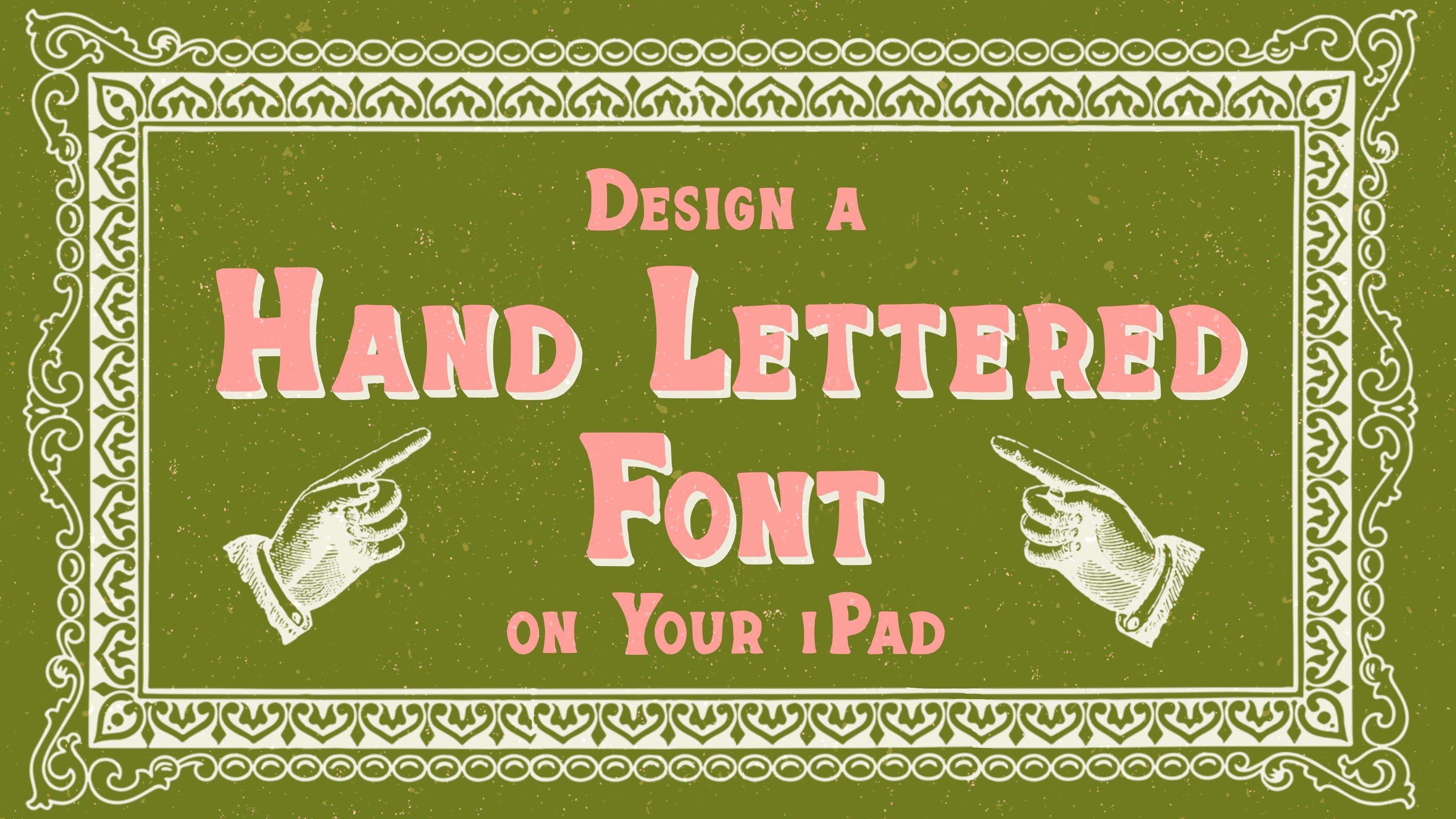
Design a Hand Lettered Font on Your iPad
Planning Your Font Style
Drawing the Letters
Vectorizing and Testing
Kerning
Cursive Fonts
In this class you’ll learn all the steps to design a font on your iPad in Procreate.  I create fonts on my iPad and sell them on Creative Market to make a little extra passive income, and I wanted to show you my whole process from start to finish so you can start creating fonts for personal or commercial use.
First we’ll plan our font using vintage lettering inspiration and then test out some letter styles before diving in and designing the whole letter set.  I’ll show you some of the fonts I’ve made as an example, so you can use my fonts as inspiration to create your own or you could come up with your whole own font style.
Next we’ll draw each letter by hand in Procreate so you can create a font with a handmade feel and even include texture, outlines, and other decorative elements.  Then we’ll piece the font together and tweak the spacing and sizing of each letter combination.
Last I’ll show you how I list the font for sale in my Creative Market shop so you can decide if selling fonts is right for you.  I’ll show you my process for creating images to display your font so you can market your font to the target audience that matches your style.
The amazing thing about this process is you can create beautiful fonts with a handmade feel all on your iPad without needing any other equipment.  Hand lettering is so popular right now, but a lot of people just don’t have time to learn how to hand letter, which is why creating fonts with a handmade feel is such a marketable way to use your love of lettering to share your work with the world and make a little extra income!
All you need to take this class is your iPad and a stylus.  We’ll be using the apps Procreate and iFont Maker to build the fonts, so those are the only paid apps you’ll need for this process.  I’ll be using the Apple Pencil, but you could use any stylus, or even your finger.  Let’s get started!
1. Design a Hand Lettered Font on Your iPad: Hi everyone. I'm Liz Colin Brown. I'm an artist, designer, and, teacher. Today I want to show you how to design a font on your iPad and Procreate. I create fonts on my iPad and sell them on Creative Market to make a little extra passive income. I want to show you my whole process from start to finish so you can start creating fonts for personal or commercial use. First we plan out our font using vintage lettering inspiration, and then test out some letter styles before diving in and designing the whole letter set. I'll show you some of the fonts I have made as an example so you can use my fonts as inspiration to create your own or come up with your whole own font-style. Next we'll draw each letter by hand and procreate. You can create a font with a handmade feel and even include some texture, outlines, and, other decorative elements. Next, we'll piece the font together and tweak the spacing and sizing of each letter combination. I will show you how I list the font for sale in my Creative Market shop so you can decide if selling fonts is right for you. The amazing thing about this process is that you can create beautiful fonts with a handmade feel using only your iPad without needing any other equipment. Hand lettering is so popular right now, but a lot of people just don't have time to learn how to hand letter, which is why creating fonts with a handmade feel is such a marketable way to use your love of lettering to share your work with the world and make a little extra income. We'll be using two different apps to design and piece the font together. The first is Procreate and the second is IFont. Those are the only paid apps that you'll need for this process. Other than that, you'll just need your iPad and a stylus. Let's get started. 2. Downloads and Resources: The first thing we'll do is get some inspiration for our font style and plan out all of the letters. I want to share some downloads and resources with you that will make this process easier. You can find a link to get to the Downloads and resources section and the Project section on Skillshare. Make sure you're viewing Skillshare in a web browser, not the app because the Project section doesn't show up on the app. Once you click on that link you'll see that you need a password to get into the page, and I'll share the password on screen right now. Once you get into the page, you'll see a list of resources that we'll be using throughout the class. The first is the Letter Styles Inspiration Boards, so I'm going to start there. If you have the Pinterest app, it'll open the app. You can use any of these as your inspiration. I would probably stick to the add, signs, and partial alphabets or whole alphabets. But if I just click on one of these as an example, you can scroll through and start getting an idea of what you could do with one of these fonts. We're probably going to simplify whatever we find here, because fonts tend to be a little bit more simple than what you see in regular hand-lettering. Let's take this one for example. I really like these curved serifs on the bottom, it's just like two little loops. That would be a good idea for a font. You could create these bars and then do these little loops on the end of each letter. You could create a new Pinterest board and save some of these that you really like, or you could just take screenshots as you scan through. I probably would stick to a serif or a sans-serif font at this point. Cursive fonts pose a little bit more of a challenge, so that's a good thing to do down the road. I'll show you one of the cursive fonts that I created, but for now it's probably good to stick to something a little more simple just to get to know this process. Here's a really nice one. Really thin bars, really tiny little serifs. Some of the letters are super wide and some are super thin, so you get this nice interesting contrast between the two. You could even do one set that's thick and one set that's thin and package them together, and say, "This is a set." You can mix and match. You could also do something like this that's more of a simple monoline. I do recommend looking for something simple. Of course, I want you to feel free to copy me and do everything as I do it in this class. If you're not ready to choose a style, just go ahead and copy the style I'm using. So you don't have to worry about starting from scratch. Here's another one. As I'm scrolling through this, I'm thinking of all these parts I want to create. Really chunky, really flat edges, so you could use a brush that has a really flat edge and just scrape through all these letters. That would be a really cool chunky font. Something like bubbly, that one's fun. It doesn't have to be reinvention of the wheel here. You can take an idea and play around with it, and do something similar. This page has endless ideas, nearly endless. Then if you go to the ads, signs, and partial alphabets you're not going to see the whole alphabet, so you're going to have to really use your imagination to figure out how you could make this work on a larger scale. Like this one for example. We've got really thin, some are really low bars here. This is a really interesting r. It's super thin. Some of these letters are really thin, the larger ones are thicker. You could play around with how you could turn that into a whole alphabet, just using what you see here as inspiration. I'm not really going to go much deeper into letter styles in this class because I do that in a lot of my other classes. I also do that in my book on hand-lettering on the iPad and Procreate. We go through and find a vintage alphabet set and then turn it into letters. If you're really unfamiliar with the lettering process and you're not even sure how to start from the very beginning to create any kind of letters, then I would really recommend this book. We're just practicing with some letters you see here. I also have a couple of other lettering classes that can help you get started with lettering if you're just feeling like a total newbie and you're not sure where to start. Otherwise, if you're ready to go ahead and dig in and just choose a letter style or copy me, let's go ahead and get started. 3. Planning Your Font Style: I'm going to go back to the resources page. Down here it says download the class workbook, download this smaller version. Some older iPads with less capacity need that smaller version. I'm going to download the class workbook. I clicked on it once, so it opened it in Dropbox and then you can tap the three dot menu, and export from Dropbox to open and Procreate. Alternatively, you can tap and hold, open in a new tab and then it downloads the file in a new tab, and then you can press download. This is Chrome as my browser, so maybe try that if you have any trouble. Also, I have a troubleshooting page on my website if you have any trouble. I'm just going to scan through the apps here. Tap more, tap Procreate. It's going to open whatever document I had open last, so I'm just going to go back to my gallery, get out of that stack, and there's that workbook that I just imported right here at the very top of my gallery. I'm going to tap on that because I want to show you a little bit of an example of what happens, when you create a font out of a hand lettered object. Here's an example of the drawing that I created to create my road trip thought. You can see my road trip thought is pretty simple, big block letters with a line through it. It's not super complex, but it's actually been pretty popular on Creative Market surprisingly. Do feel free to go with something pretty simple because you don't need to go way overboard to create a beautiful font. What you're seeing here is these big lines cutting through, and you're also seeing all these little tiny dots, all this texture here. There's a lot going on, on these letters. Now I'm going to go down here to where it shows the font. You can see it's still got a little bit of that roughness, but you're losing a lot of the texture, a lot of the variation. That's just because of the way fonts work. Apps and programs aren't built to accept vectors that are this complex for every single letter. Imagine if you typed an entire page with letters like this, they would be so many vector points on the page, the program would just crash. It just is impossible to make a font with this much texture, but you can get that same feel when we vectorize and simplify a letter. I really wanted to show you that before you start drawing letters, because I don't want you to spend all this time making a beautiful texture, and then get into it and realize, oh, I'm going to lose all that beautiful texture and that's frustrating. Just take a look at that, zoom in on your iPad so you can really see what possibilities we're working with in terms of texture. Once you have a good idea of that concept, let's make that layer invisible and go to the next group on the layers panel. What you're going to see is the alphabet is the first group, numbers and symbols as the second group, and then some kerning stuff that we're going to get into later, so we won't need that until later on. I'm opening the alphabet group. The first object is the text. I just created these letters here so that you have something to start with. Of course, I'm not expecting you to copy these letters. You can if you want. I created these, feel free to start with that as your base. But it's really just a reminder of what all you need to fill in to be able to create this font. I would say alphabet is required, and numbers and symbols are optional. Of course you need letters in your alphabet, but you don't necessarily need numbers and symbols in every single font. I'm going to leave that there as optional for you. What you can do is open up this group, and create a new layer above it. You can also reduce the opacity of that text layer if you don't want to see it at all, or you just want to see in a little bit. I'm going to go to that new layer, get black as my color, and you can really grab any brush here. I didn't create a brush set for this class because I know that everybody's going to want to use a different brush. As you've seen, because we lose so much texture, it doesn't matter what brush you use. Maybe go to the calligraphy section or some other section that you really like, and just choose a brush that works for you. I just made this brush for my last class, which is called combining lettering and illustration and procreate. If you want this specific brush, you can grab that through that class. I'm just going to start by playing around with ideas. There's a letter shape. I'm going to get a smaller brush. One idea I have is to flare like this. We got really steep flare on every letter. I'm really just sketching. I'm not going into a ton of detail here, and I'm really just playing around with ideas. Sometimes what I'll do is just do letter A in a few different ways. If you took some screenshots on that Pinterest page, you could pull those up here. Here's one as an example, I really liked these just simple serifs. I'm going to do one of those. It's just like a, that's a little bit big. Then it swoops down. I'm exaggerating it because I'm really just using this as a starting place. You can start like this. This is how I tend to do it. I don't always sketch the outlines of letters. Sometimes I just dive in like this, because I like to be able to see what it looks like in it's chunky form. Sometimes if you sketch something, you're not really getting an idea of what the letter looks like in its full form. That's why I tend to sketch in this way, like filling in with a big chunky marker. There's a couple of different As, let's do one more. We could do straight, really super straight just like triangles, coming off for the ends of these. There's three ideas, and of course you can play around with as many ideas as you want. I'm going to go with something in between this and this. I don't like quite so much of an angle, and I don't like quite so much of this steep slope, so I'm going to meet in the middle. This one, I think I'll save that for a whole other font because that's like its whole own thing. I think it would also look cool if I just erased some lines out of it here, and let that be the font. I feel like that's got its whole own life ahead of it. These are going to be more my inspiration. This is just to show you how I might brainstorm in the beginning to get started with this process. Take your time with this, figure out what letters you want to use or of course, copy me as I move forward in the next steps. 4. Drawing the Letters: Once you've decided on a style for your font, it's time to start building the letters. Remember if you can't decide on a style it's fine to copy me so you can learn this process, and then you can jump back in later and create your own style once you know the font-making process. Remember that this is probably your first font, may be your first font ever. Probably not going to be your best font ever, so that's totally fine. The point of this is to learn the process, not to make the perfect font. Let's go ahead and start building our letters. I'm starting out on this same workbook page, and I've created a new layer above this text layer. The first thing I like to do is set the thickness of the letter. Using that inspiration that I created before, I'm just going to have that on a separate layer nearby so it's available if I need it. It looks like this thickness is working pretty well, so I'm going to stick with that. I'll just make those little tests layers invisible. The first thing I like to do is just go through and set the thickness on every single letter. I find that it's a little bit easier for me to just conceptualize the whole alphabet if I do the thickness first. Of course, you can draw a letter by a letter or you could do a few test letters first. Whatever you want to do here, go with whatever works for your style. I'm just going to go ahead and draw each of these out. Now that I have my thickness set I'm going to make that original alphabet below invisible, so all I can see is this alphabet. Create a new layer and make my thickening layer invisible. Get a smaller brush, and start creating those serifs that we talked about. I didn't like this super angle and I didn't like this super slope, so I'm going to go with something that's a little bit more subtle and just gives the letter some chunkiness at the bottom. All I'm doing is, as you can see outlining each of these sections. I color drop to fill that in. Then there may be little things that aren't perfect and I'm just going to go through. Of course, you could use a more smooth brush. This is the brush set from my lettering and illustration class. You could do something really smooth, so that the edge of your letters are super smooth if that's what you want to go for. Decide here what works better for your style. I'm really into the rough and chunky brush right now, so I'm just going to go with that. But of course, go with whatever works for you. I'm just going to repeat this same process on every single letter. I'm not going to make you watch me do that because that would be very boring, but I'll show you the time-lapse here so you can see that I really did every letter exactly the same. Just adding that little bit of flair to the bottom of every single letter, and then I repeated that same process with the numbers and symbols. Again, you don't have to do numbers and symbols. It really depends on what your purpose is for this font. If you're just using it for personal use on your own projects, then fill out whatever parts you want to have in your font. If you're going to sell your font, you probably do want to include letters, numbers, and symbols, but that may be something you want to leave for later on. Take your time here, but also consider that this is your first spot. You don't have to include everything and you can always go back and add stuff to your font, which I do all the time. 5. Vectorizing and Testing: Once you're happy with how all of your letters look, it's time to start piecing the font together in iFont. We'll go through a process of exporting from Procreate. Importing into an app that helps you vectorize called Adobe Capture, and then piecing each letter together in iFont. It's a three-step process, but we're going to take it slow and we're going to do a little bit of testing first so that you don't do your entire alphabet before testing a few letters first. I'm starting out here with my alphabet that I just completed. One important thing here is to make the background invisible and to make the guides invisible. All you want to have on this page when you close this document is letters, nothing else. I'm going go back to the gallery. There's the document. I'm going to tap select, tap on it and duplicate. Tap the x, this is my original. I guess I already named this original, but of course you will have to do that for the first time. This is my original and I'm going to name this duplicates. I'm never going to touch that original because there will be times when you want to go back to that document, change something, or use this as a template to create a new font. Maybe I want to create a lined version of the same font, going through and adding lines to each of these. If I already have this doc available, then that's going to save me a ton of work. Always, always save your originals. This duplicate, we can do whatever we want. I need 26 of these because I'm going to crop each letter individually so that each letter has its own document like this. I'm going to tap select, tap on that document and duplicate it four times, so I have five. Now we can select the five. I've got five, duplicate that. I've got 10, duplicate that. I've got 15, 20, 25, select one, duplicate it. Now I've got 26, one for every letter of the alphabet. I'm going to go into each document, tap on the actions menu, canvas, crop and resize. First we're going to get A. You don't have to go super close, but you don't need a ton of white space around it, so just crop it as close as is comfortable. Tap done. Back to the gallery. We're just repeating the same process over and over. This is a good time to put on your favorite music and just work on cropping all of these. There's a little bit of this busy work when it comes to building a font. Take your time here, crop out every single letter, and by the end you should have every single letter of the alphabet and then your original remaining. I've actually already done this. I'm not going to do this on camera because you've seen exactly how this process goes. What we're going to do next, once you have everything cropped, is export these into a program that vectorizes them because fonts need to be made out of vectors then when we bring them into the iFont app it's already a vector, so we've got everything taken care of. You're going to need two different apps for this process. If you go back to the downloads and resources page, they're both linked on here. iFontMaker app, that is a paid app but if you're selling your fonts, you're going to make back your money pretty quickly so it's worth the money if you ask me. The Adobe Capture app is free. Go ahead and download both of those, and then we can do the next part of this process. First thing I need to do is get these letters out of Procreate into my Photos app. I'm going to select, and you probably know you can just drag in Procreate, select a lot of things. I'm just selecting A through Z. I'm not going to do my numbers and symbols on camera here because it's the exact same process as the letters. You can imagine what goes into that process. I'm going to tap share JPEG and save 26 images. I'm just saving those to my camera roll. If I go to Adobe Capture and I'm going to swipe up from the bottom here, grab that Photos app and put it over here. That's going to allow me to drag photos into Adobe Capture. It saves you a little bit of time from tapping import, choosing a location on and on. You can only do one at a time. I'm going to grab that A, drop it into Adobe Capture. As soon as it opens it, you'll see some options on the screen. There are a lot of things you can play around with here. I'm going to show you the only two or three things that I ever use. The first one is this. I don't know what it's called, but I'm going to call it threshold because it changes how much detail is in your vector. I tend to just bump it up because sometimes if there's like a little hole or two on your letter, bumping it up will get rid of that. Then you've got this nice clean line. I'm going to tap the check symbol. I've got this nice chunky vector. But let's say for example, we've got a little problem here, we've got a little black line sticking out or we've got a little white dot somewhere in there. We're on this section that says refine, and then there's this paintbrush, if you tap on that, you can actually draw and add to your vector. I'm going to tap back to undo that. If there was a little white dot there, I could just go, boop, it's gone. Tap done. We can also erase. There's an eraser right here. Let's say there was a little extra corner there, I can just cut that off. Now I have a clean vector. I'll tap back to undo that. But you get the idea. We've got a brash and we've got an eraser so you can edit your vector on this page. You can also use this smoothing option. We tap Smooth, and then it's off right now. If I tap on, it totally changes how my letter looks. If you want this smooth look, then this would be great. If you like the chunkiness then stick with that. Everything looks good to me, so I'm just going to tap save. Then you have to tap save again to add it to your Adobe Capture library. I'm going to repeat that same process, drag in the B, bump up the threshold. I don't need to change anything with the brush, so save, save. What this is doing is it's turning it into a vector. We can bring it into the Adobe Capture app and it's already vectorized. What I'm going to recommend to you is starting with ABC, not doing the whole process at first because you may get in into iFont and decide, oh, I don't really like how this aspect looks and I want to change my whole alphabet. I always do this in little parts before I do the whole alphabet, because I don't like to waste a lot of time on an alphabet that I end up hating. For now let's just do ABC. Swipe that Photos app out of your way. I'm going to open iFontMaker. Let's see, I had something open. Let me just go back to the home screen. This is the home screen that you'll see when you log in. You can tap new to create a new document. That doesn't really do much, so I don't ever use that button. I'm just going to tap "New". So it's just starting me out on A. Then up here is where you choose what letter you're working on next. I'm working on A, so I want to make sure the A not the a is selected. I've gotten the A selected. Back to Adobe Capture. Tap one one export as SVG. Then as the program I'm going to choose "iFontMaker". Then it just drops that A vector right in there. I'm tapping the Move Tool down here because I want to move it into place. One thing to think about here is the font that you're starting out with is really important because it determines the kerning, also known as spacing of your letters. Let me turn on this light so you can see a little bit better in this app. Down here on this T, I'm going to tap that. You can see that you can change the font that displays here. If you can choose a font that has a similar width to your letters, it's going to save you a lot of work when you get to the point where you're deciding how your letters are spaced. For me, this font is looking pretty good because the bottoms of it right right are pretty close to this A. So I'm happy with that. If you were doing something thinner, of course, go with a thinner font. You can even download a font and open it in iFont. Here's a condensed font that you could use for really skinny letters. Think about that before you get going with your whole font. This Move Tool lets you move this around. Another thing you may want to adjust before you start dropping all your letters in here is these little guides. If you tap the layout symbol here, it says DRAG GUIDES TO ADJUST. I can move all these guides around so that it'll help me drop my letters in there in the right place. I'm going to leave them as they are with this font, but I've worked with other fonts where I did have to adjust it. I just want to let you know how you do that. There's A. Back to Adobe Capture. Tap the three dots symbol, export as SVG. IFontMaker. I failed to go to the next letter. This will happen to you. I'm going to tap "Back, Back, Back". We're going to get rid of that B, and then go over to B up here. Then tap the scissor symbol, paste imported SVG paths. We're dropping the B in the right place. Now that I want to put C in, before I close iFontMaker tap the C. Back to Adobe Capture, export as SVG. Choose "iFont" and "iFontMaker", tap the Move Tool and adjust that. This is the right way to do it, but of course, I just wanted to show you the wrong way to do it so that you could see how to paste imported SVG paths. There's A B C. That's what A B C looks like in my font. I can tap "Preview" up here. Tap "Kerning". Tap this x symbol, and just tap "A B C", capitals only. Now, I can get an idea of what my font is going to look like. Just type a few letters so you can look around. One thing I'm noticing is that C looks a little dinky compared to the A and B. I'm already noticing things I want to change, but overall I like how this looks. I'm happy with the flair. I'm happy with the size of these letters, the thickness of these letters. If you get to this point and you're not happy with how that looks, of course, you need to go back to Procreate, redo your letters, or maybe redo how you vectorize these. So things are a little different. Otherwise, you can go ahead and repeat the same process with every single letter of the alphabet. I'm not going to do that on camera. Of course that would be boring. I would just be doing the exact same thing for every letter. What I do want to show you is how you can use your uppercase letters for lowercase letters like I did for my vintage advertising font. The way I would do that is go to my A, tap the scissor symbol. Copy all. Go to the A over here, tap the scissor symbol and tap "Paste". Now, I've got that A over here and I can tap the Move Tool, and just put that into place. I could repeat the same process with B and C. Again, this is where you really need those guides. If you need to adjust your guide so that your height for your lowercase letters is really clear, you can go to back to that Layer section here and adjust those guides. I'm happy with how that looks. Copy, back to C and paste. Now that I have lowercase and uppercase if I go back to that Kerning section, I can look at how the lower and uppers work together. Of course, we're going to have to do a lot of work to adjust the spacing on this spot, but you can see how I got to this point. I just vectorized each of these letters, stuck it in iFont, and then optionally stick in the lowercase smaller version. If you don't want to do the smaller version, what I do recommend is at least copying this bigger version and pasting that on this page. That's because if someone is going to use your font, even if it's an all caps font you want to be sure that even if they're using lowercase as they're typing they're still getting you letters when they type. Even if you're just doing an all caps font, go ahead and paste that all caps or the capital letter on the capital version and the lowercase version so that your font is really easy to use once someone types upper or lowercase letters. 6. Kerning: Once you have all of your pieces pulled together in iFont, you should have at least all of your capital letters, and then the option of doing lowercase letters as well, the option of doing numbers, and the option of doing symbols as well. So you have to decide here what all you want to do and how far you want to go. Of course, if this is your first font, I would keep it as simple as possible and just go through the whole process with as few letters as possible. Another option if you keep scrolling down on this top section is Latin accent, Latin extension. If you want to make this available for other languages other than English, this is definitely a possibility. I have typically only done the English alphabet A through Z capital and lowercase, and these numbers and symbols that you saw in the workbook. I've gotten a few people on Creative Market who have asked me for the other language support. I haven't done that yet because it's a lot of extra time and I'm not sure if it's marketable to my specific audience, but hopefully, that's something I can add in the future. You can decide whether or not that's something that you personally want to do. The next thing I need to do after you've inserted every single piece of your font is basically to check it and adjust the spacing. This is where choosing that original font that's underneath my pieces that I created is really important, because if you tap on Kerning, the spacing that you see here is exactly what that original font had. If your original font matches the font you created, then you're not going to have a ton of work to do. But if you are, for example, like I did, creating letters that are totally different from your original font, then you're going to have a lot of work for the spacing. And I did have a lot of work for the spacing here. I've worked on this a little bit, so it wasn't a total mess when you saw it. But when you first pull yours in here, it may be out of whack and you have to do a lot of work to clean it up. Here's an example, the word, "They." See, the Y has so much space right here? It needs to just come over a hair, and then it looks a lot better. It almost looked like it was two different words, the Y, so I just need to pull that together. Then every time your font has an E and then a Y, that is fixed. You only have to go through and adjust this for each letter combo one time. I'm going to pull apart that O and C because they're almost touching. This is a long process and you need to have a lot of different types of texts to check your font. So if you open up the workbook and you go to the layer called Kerning Text, this is some of the stuff that I used to check my font. I'm going to go to this capital and lowercase combo section, double-tap to copy that, tap "Copy. " Go to iFontMaker, tap this X, tap one time, and tap "Paste". Then I can go through and check all of the spacing for my upper and lowercase letters. You can see, for example, with this AH, there's a little bit more space here than there is between AG. So I'm just going to bump that over a little bit. I made this list for you of every upper and lowercase combo, I think. Almost every combo that you would ever see in the English language anyway. You can scroll through here and make sure that all of your uppers and lowers look good together. After you do that, there are many different ways to kern your font, and if you ask 50 font makers they'd probably all tell you something different. The years are a good way to check your numbers. This is the Oxford 3000 and the Oxford 5000. These are the most common words in the English language. I think that's a good one to check. I'm going to copy that link, pasting that into a browser, and then you tap "Download." You can choose the Oxford 3000 or 5000. I'm going to go with 3000. Then you can just copy. I'm just going to select all and copy. One downside of this kerning page on iFont is it doesn't go on to infinity; it runs out. Let's see. I copied 3,000 words and it only pasted through A. So you would have to go back and copy different sets if you wanted to use this list. I think this would be a very systematic way to do it. It's also a very boring way to do it, so you have to go with what works for you. One thing I like to do is go to Wikipedia and just search for something. I searched for coffee here. I'm going to copy that and scroll down and copy a big section about coffee. Tap "Copy." Back to iFontMaker kerning page, and tap "Paste". Now I can read about coffee and check my font at the same time. It's a little more interesting. I would say, do whatever will make you kern for the longest amount of time. If you need it to be something about coffee to make it more interesting for you, then that's what you should do because kerning is so important. You don't want someone to get your font and start typing and see that the Es and the Rs are two spaced apart and every time they typed the word "ARE," it's like "AR E." So that's really important to take a lot of time and test your font with a lot of different types of text. You really could not only spend a ton of time on this yourself, but you could put your font in some Word program and send a letter to your friend or send them a document and say, "Can you read this and tell me if any of the spacing looks weird?" Because you may miss over some things that other people would be able to see. Check it yourself. Maybe get someone else to help you check it. Get some coffee, step away from it for a while and come back the next day. Kerning is not something I do after I make my font. It's something I do the next day or the day after or a week later. For me, building fonts is a long process. I don't do it all in one sitting. I don't think you're going to do a good job if you do it all in one sitting. You're going to be tired and making little mistakes. So it's better to come back to it and just get a fresh mind. One thing to think about with spacing is the space between each letter should be similar in volume. If you could picture pouring some water in-between these two letters, the volume of that water should be similar to the space over here and over here. Spacing isn't really a thing where you would put a bar in between each letter and that should be even. It's more about this overall white space in between that you need to look out for. You've been reading your whole life so you have a sense of when something looks a little bit weird, like that. It says, "wa" and then "ter" instead of "water." We're just going to scoot those back together and then it looks right. So use your intuition here and remember this is a handmade font. It doesn't have to be perfect. This isn't one of those sleek, perfect fonts that you see. It's playful. It's fun. It can have a little bit of inconsistency. Also, you can always go back and edit your font. So if you're ever using it or if you sell it and a customer says, "Hey, these two letters are too close or too far away," you can fix it, upload the new file, send the file to the customer and all is well. So it's not the end of the world. Don't let it stop you from listing this for sale. Don't let it stop you from creating another font or anything like that. Once you're happy with all of your spacing, it's time to export the font and try it out. 7. Cursive Fonts: Next I want to show you how I put together a cursive font that I'm working on. As I mentioned before, working with cursive is a little bit more difficult than working with a print or serif font. You can certainly do a cursive font, but it has a little bit more complexity to it, especially where the letters connect with each other. If you can imagine like an E meeting a T, they need a way to connect that's clean and smooth and that matches every single letter. It's just a lot more to think through before you plan the font. I want to show you a little bit of that process. You can get an idea of what it entails. I've created this cursive font, and if I go to the kerning page and I'll paste that coffee text into there, you can see how this is going to look. It's a really chunky bottom, thin top font. One thing I thought about as I was creating this font is how will the letters connect. That's what makes a cursive font so complex. You have all of these little connection points to consider with almost every single letter. I decided not to have every letter touching each other especially because like with my lowercase R's, I did this little loopy thing at the bottom. We don't really want that letter to meet the U, I'd rather them be separate. I decided to have some be separate, whereas others like this, H and E, those can connect to each other. This is what makes a cursive font so complex is that you have to think through every single letter combination and then do the kerning for every letter combination as well. I want to show you in Procreate how I laid out this font because some of you may want to go and create your own cursive fonts. If you look at the letters here, you can see that I made sure that each little piece that jotted out to go to the next letter is going straight out like that. It's never coming back like that. Because then when it meets another letter, you're going to see a little tail that sticks out that way. You see all these little things that jump out here and they're always going directly, whoops not that one, towards the next letter. You can see a lot of these look really similar, like this r curve, the m curve, the n curve, and that's because I just copied and pasted those curves onto each letter so that I had the exact same curve at the end of each letter. That's something that you can do to make your cursive font a little bit easier to do. Of course, you don't have to build a cursive font. It's a lot of extra work. It's somewhat complex, but you may eventually get to that point where you're ready to do that. Then you can start building that in iFont. 8. Exporting: Once you have your font all ready to be exported, all the kerning looks good. You've got all of your pieces inserted. Usually, I'll do this three or four times and then I have to come back and adjust something about my fonts. Don't feel like this is the final export and you don't have any other chances. You certainly do have plenty of time. Of course, you know, I go back in and edit fonts months later, weeks later. This is just the initial export and this will always be saved in your iPhone app. I'm going to tap the share symbol up here, and then tap configure and build font. Then you're going to get the option to insert a title and insert your name. Decide if you want it public view only or private. I always do private because I sell my fonts. I don't want anyone just downloading them. One thing I want to add here, I had to contact the iPhone team because I was having some trouble exporting some of my fonts. It was like not showing the holes in the letters like the A and the B. They were just solid. They recommended if you see that issue when you type in your title, also type minus rasterize. If you type minus rasterize, it fixes that issue. If that comes up for you, your letters are coming out solid, they don't have holes in the middle, come back and do that or just go ahead and do it and then you know you'll never have to deal with it. It doesn't actually show up in your title when you export the file so it's just signaling to the program, "Hey, you need to fix this issue." Anyway, once that's done, I'm going to name this vintage advertisement font two, because I've already created a font with this exact same name. I'll just change my name for now. Then I'm going to tap rebuild. Sometimes it takes a little time if it's a larger font. Now I need to think about where I'm going to save this. You could save it in your cloud storage. You could save it in your files app. I tend to start out with my files app. I'm going to open that files app and select on my iPad. I have a fonts folder that I've already created, but you could tap plus to create a new folder and then you could name it font folder or maybe you want a folder just for the specific font. I tend to use folders in that way. Back to iFont, it's asking me how I want to extract this file and I'm going to say, download desktop font. You could also do install iOS if you wanted to just install it on your iPad to be used in all apps. I'm going to click "Save to files" and then selecting my fonts folder, I'll click "Save". Now I've got it saved here. If I open that folder vintage advertisement font two, I can tap on that and I just imported it into Procreate. I could also import it into any other program that I wanted to work with. The next thing I do is use the font for something. Of course, you can use it for whatever your personal or commercial use is because you created this font, you can do whatever you want with it. I want to show you some things that I do with it especially selling it on Creative Market. Let's go ahead and dive into that process. 9. Selling on Creative Market: Next I want to show you my whole process for adding a new font to my Creative Market shop so that if you want to sell your font, you can jump right in and do that process. I'll be showing you how I list a new item and how I plan out my marketing images for the fonts. You may want to start thinking about what market your font would be best for and especially what key words and concepts work well with your font. That might be gritty and rough, that might be refined and loopy, that might be playful or serious. Start thinking of some key words and concepts that work well with your font. We'll try to integrate those into the advertising images. The first thing to do if you want to list your fonts for sale on Creative Market is to open a Creative Market account if you don't already have one. On the Downloads and Resources page, you can find a link to that. I'm just going to go to my Creative Market account so you can see how this is laid out. Here's my profile. I have a few fonts for sale. I only have three fonts for sale right now, and I still make a few dollars a day. Imagine if I actually filled my shop up, I could actually make some regular income. But even with a few fonts, I'm paying the coffee bill. That's something for the amount of work that I did for these fonts. One thing to think about when you list these fonts is that you have to create some artwork to display them so that people have a sense of what your font would work well for. Here's an example for my Art Nouveau font. I typed the fluids font with a vintage feel to give people an idea of what they would see. I also created these little layouts to show what I think these would look well with. These are vintage images that are in the Creative Commons. Here's a Vintage image resources page if you need some vintage images and you're not sure where to get them. I show how to create things like this in a lot of my classes. I'm not going to go into actually creating these, but you can imagine I just get this vintage image, remove the white, turn the drawing the same color, that's my color palette and add in a little bit of hand drawing and my font. This gives the buyer a sense of what style is this. It's Bohemian, it's vintage. It's relaxed. I also try to choose products that I think would look nice with my font, so pure beeswax candles was a hand feel. That all goes with the theme of my font. I love coffee, so I did a section about coffee and a little nice flower here. It's not really related to coffee, but I got and gives the viewer a sense of like natural feel, laid-back feel. I also always include an image that is the letters, numbers, and symbols so that the viewer can see everything that they'd be buying if they purchase the font. Let me just show you one other example here, road trip font. I thought this would look good as like a vintage ice cream parlor, shave cream, and then I'm showing all the letters and all the symbols that are included. You can decide here what's going to work best for your style in terms of the imagery. I went with a vintage feel, that's my style, but go with whatever works for you here. For my vintage advertisement font that I've made in this class, I've created a few different pieces of artwork. I'm going to select those so you can take a look. I've got the cover. This is the main image. I've got a few different products that I think would look cool with this font, letters, numbers, and symbols. I always do about five, but I think you can do as many as you want, so more is probably better. The image size that they request for Creative Market is 1820 by 1214. You may want to write that down. It's always available on the Creative Market site too. But so to create this canvas, I just tapped new canvas, choose pixels as my measurement and enter this exact pixel dimension. Let's go ahead and list this font on Creative Market. I'm going to select all of those, share, save it as a JPEG, save five images. I've got my images ready. I also need to have my font file ready. They do recommend zipping the file. What I do is tap select, tap on that font file in my file's app just as we exported it from iFont, tap more, and tap compress. Then you've got a zipped version of your file. Back to Creative Market. I'm going to tap the dropdown on my profile, tap add new product, select files, and then select each of my images. Once you've got all of your images in there, you can add title. I've talked about this before in my Society 6 class, but words are really important here. People are going to be searching for something specific when they go on Creative Market. Vintage, that's a good keyword. Handmade, depending on the style of your font, you may be able to stick something in there like my Art Nouveau font. That's a good searchable title. But then we also get a chance later to add tags. Just try to make your title something accurate yet searchable. I wouldn't call it like John's font. That wouldn't be very helpful for search. Choose a category dropdown here, obviously this is a font. Then on the category we get to choose a type, typically for this type of hand lettering, it's going to be display font. That means font that you use to display something, advertise something, not really something that you would like type a book with, something that's more of like a title font. I'm going to tap display because this is a display font. Then we have a little section for description. We could say, this is a vintage handmade font. Of course, we're trying to get all those keywords in there that your customers might search. This is a handmade font inspired by vintage advertisements from the 1920s or whatever you want to say here, I think the more interesting you can make it, you want people to be on this page reading about your font, being interested in your font. Take some time here to make a nice description that's both searchable for SEO purposes and also interesting, fun to read. Customize your search engine listing. I always do this. This is really important. You just tap edit title and meta description. This is what people will see when they type something in Google and find your font. You wanted to say the right stuff, you probably want to copy your product description or do something a little bit shorter. It'll show you exactly what will show up here. You want to make sure that all looks professional. Prices, I make all my fonts, two bucks to start and then I increase the price for web font and ePub. I keep my prices really low right now because I want to sell a lot of fonts and get a lot of reviews. I'm not concerned about getting a ton of money off of this right now. I'm just slowly building up my shop. You go with whatever works for you, of course. But I haven't marketed my shop, probably most of my followers don't even know I have a Creative Market shop. Right now I'm just keeping my prices low and you may want to do the same if you're just starting out. You can read about these licenses if you want to get into more detail with this, totally up to you here. We need to add our product. Drag or click to upload product. I'm going to go to browse, and I need to get into my fonts folder and go to the vintage advertisement font, the zipped version. Click on that. Under property here, this is a vector font. This is not a web font. That means it doesn't work well with websites that have to translate from different devices and work with HTML. Vector is a better option here for what we're doing. Then we need some tags. I might type vintage, handmade, rough font, handmade font. Just picture what your customer will be typing when they want to find something like this. Those tags in the description and the title should all work together to help your customers find your work. Once you have all of those sections taken care of, you can tap the little dropdown here and tap Live. I'm not going to do that because I've already posted this piece for sale on my profile and I'll show you how that looks here. If you go to my profile tap on the Vintage advertisement font, here's all of my images. Here's the title that I input, here are the prices that we put in. The customer can type words and see how it's going to play out with the font. That's one nice thing about Creative Market, it lets the customer test it. There's my little description down here and then it links to my other fonts. You can see this is an extensive process, but you can make it a little bit of money on Creative Market and especially I think if you were posting fonts all the time, I can tell you from just having a few that I make pretty regular sales and every time I post a new one, it seems to generate some interests in the old ones. I think if you were putting out a new font every month or every few months, you could really get a nice little shop going with some passive income. I hope you enjoyed watching this class and that you feel inspired to start designing your own handmade font. If you liked this class, you may like some of my other classes where I cover a lot more ways to design and paint on your iPad, like how to hand letter in the 70 style, how to combine lettering in Illustration and how to create ink illustrations in Procreate. Check those out on my profile if you want to see more. Also, I share a lot of free downloads for iPad artists and designers on my website. If you'd like to get more like you got for this class, check out my site. I would absolutely love to see the font that you create after you watch this class, so please share what you make. You can do that here on Skillshare in the project section or you could tag me on Instagram or Facebook. You could also join the Facebook group I created for iPad artists, designers, letterers, and digital planners. It's a place to get opinions and advice on iPad drawing, painting, and digital planning, and get inspired by digital creations from around the world. If you love creating things on your iPad and want to join other people around the world in conversation, sharing ideas and seeing each other's work, check out the group through the link on the website. If you have any questions as you work through this process, please reach out to me. You can reply to my discussion here on Skillshare, or you can contact me through my website. Thanks so much for watching and I'll see you again next time. Bye bye.